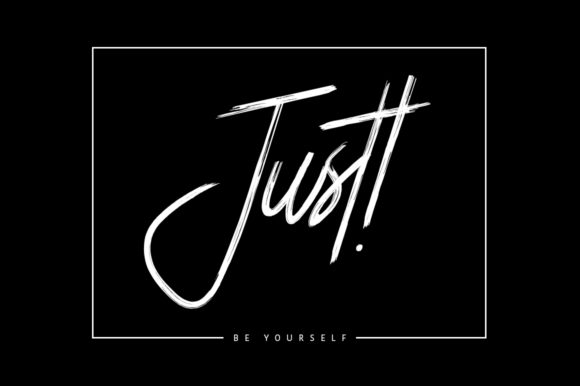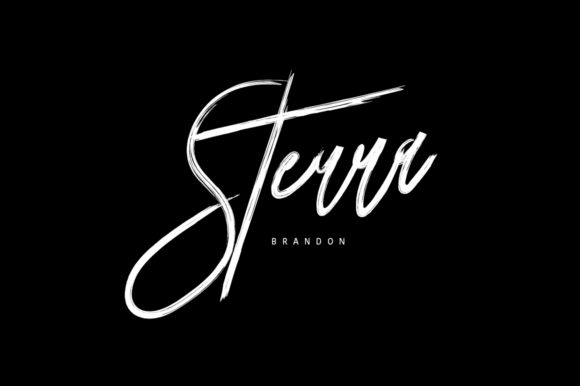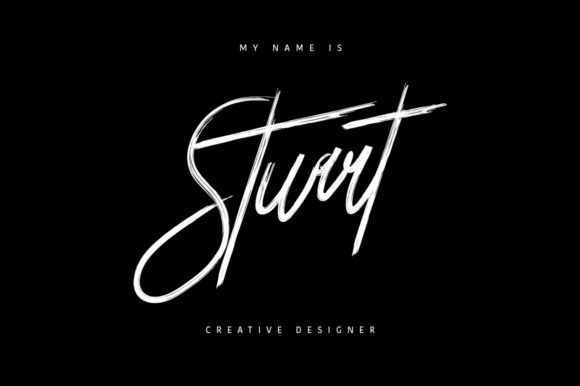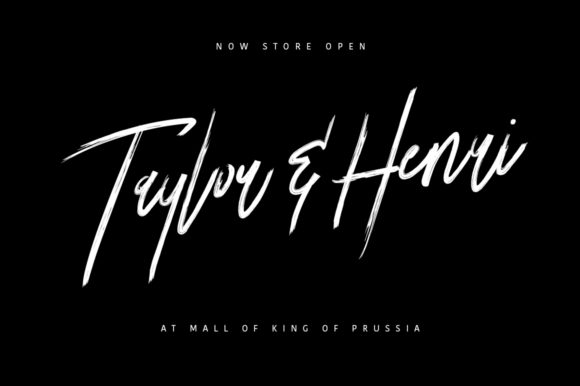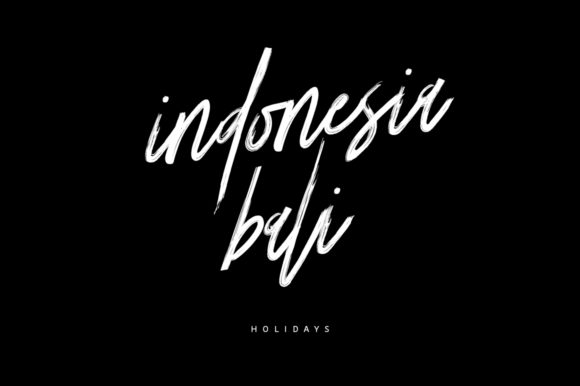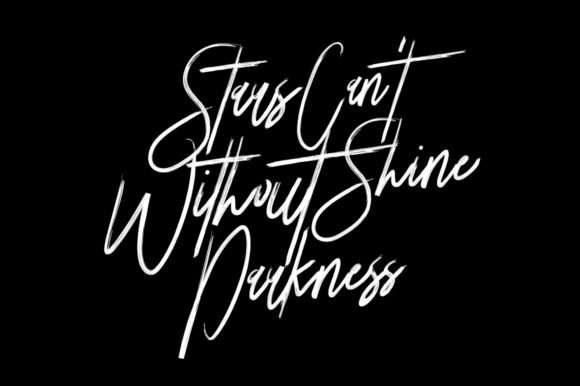
Introducing Boostpest Font: The Ultimate Brush Font for Designers and Crafters
Are you tired of using the same old fonts in your designs? Look no further than Boostpest, an authentic brush font that’s taking the design world by storm. With its casual charm and down-to-earth feel, Boostpest is the perfect addition to any design project. In this article, we’ll dive into the features and benefits of Boostpest, and explore how it can elevate your designs to the next level.
The Charm of Boostpest
Boostpest is a brush font that’s all about charm and character. Its casual, laid-back vibe makes it perfect for designs that need a friendly and approachable feel. Whether you’re working on a logo, a headline, or a body of text, Boostpest is incredibly versatile and can adapt to any context. Its unique brush strokes and imperfections give it a handmade feel that’s both authentic and endearing.
Readability and Versatility
One of the standout features of Boostpest is its readability. Despite its casual nature, this font is incredibly easy to read, even at smaller sizes. This makes it perfect for use in a variety of contexts, from busy backgrounds to standalone headlines. Boostpest is also highly versatile, and can be used in a range of design applications, from digital projects to print materials.
Using Boostpest on Busy Backgrounds
One of the things that sets Boostpest apart from other fonts is its ability to shine on busy backgrounds. Whether you’re working with a complex image or a bold pattern, Boostpest’s clear and confident strokes make it easy to read and understand. This makes it perfect for designers who want to create eye-catching headlines or titles that really stand out.
Boostpest as a Standalone Headline
But Boostpest isn’t just limited to use on busy backgrounds. It’s also an incredible font for use as a standalone headline. Its bold, confident strokes make it perfect for grabbing attention and drawing the eye. Whether you’re working on a poster, a flyer, or a social media graphic, Boostpest is sure to make a statement.
Design and Craft Applications
Boostpest is a font that’s not just limited to digital design. It’s also perfect for crafters and makers who want to add a personal touch to their projects. Whether you’re working on a handmade card, a scrapbook page, or a piece of jewelry, Boostpest’s unique charm and character are sure to shine through.
Tips for Using Boostpest
So how can you get the most out of Boostpest? Here are a few tips for using this amazing font:
- Experiment with different colors and textures to really bring out the unique charm of Boostpest.
- Don’t be afraid to mix and match Boostpest with other fonts to create a unique and eye-catching design.
- Use Boostpest to add a personal touch to your designs, whether you’re working on a digital project or a handmade craft.
In conclusion, Boostpest is an incredible font that’s sure to elevate your designs to the next level. With its casual charm, readability, and versatility, it’s the perfect addition to any design project. Whether you’re a designer, a crafter, or a maker, Boostpest is a font that’s sure to inspire and delight. So why not give it a try and see the amazing things you can create?